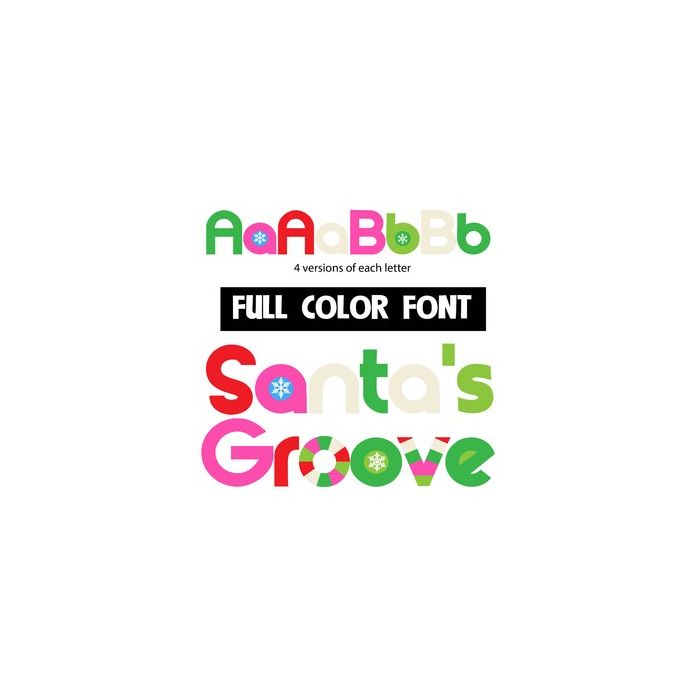
This full-color font features a Christmas color palette and snowflakes throughout. There is a full alternate upper and lowercase in alternate colors to help you stay creative. This font works best for titles, displays, posters and more. Please note color fonts will show as black in non compatible programs. This font type is compatible with Silhouette Studio.